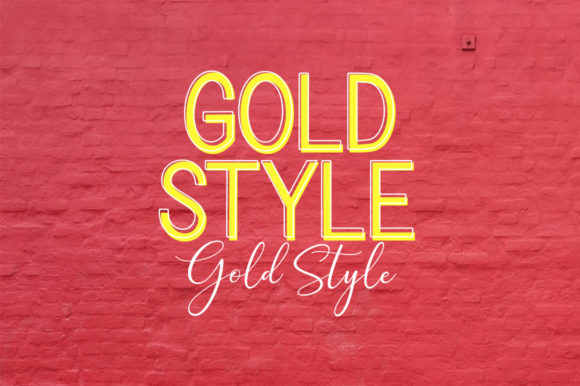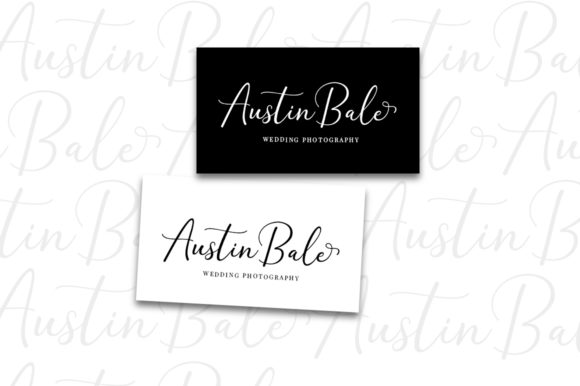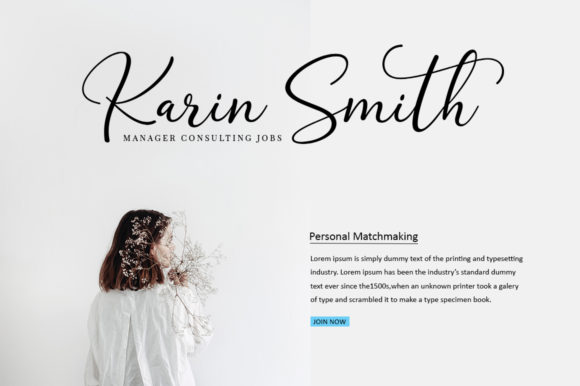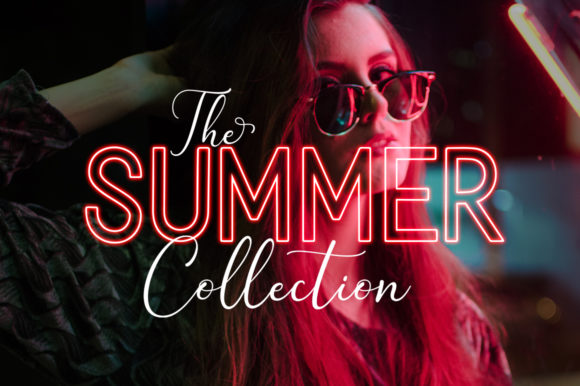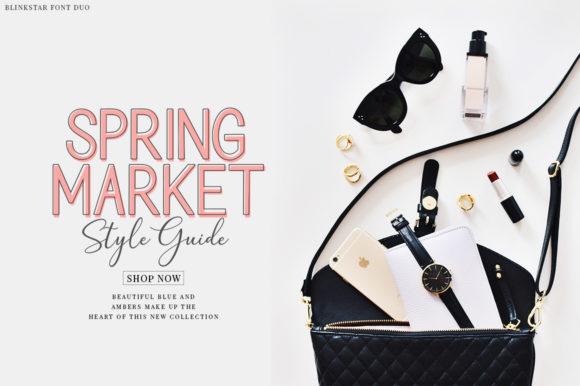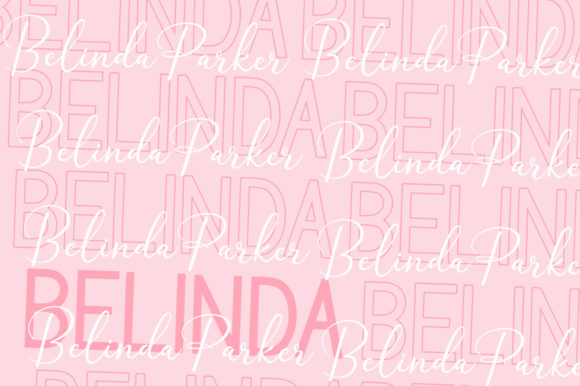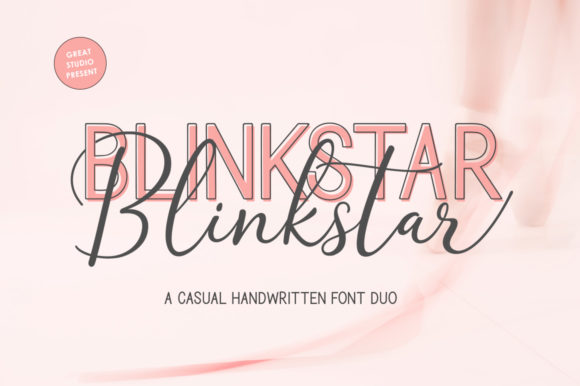
The Blinkstar Duo Font: A Playful Script Pair for Creative Projects
Have you ever been in the middle of a design project, and suddenly, you’re stuck on finding the perfect font? I recall a recent experience where a client asked for a custom lettering piece with a playful, yet elegant feel. After searching through numerous font options, I stumbled upon the Blinkstar Duo Font, and it instantly became my go-to choice. In this article, I’ll share my experience with this beautiful font, its features, and how to make the most of it in your designs.
A Personal Favorite: What I Love About Blinkstar Duo
The Blinkstar Duo Font is a versatile script pair that consists of a super fine and casual signature script and a complete and clean set of sans serif letters. Here are some features that I love about this font:
- ✨ Many alternative characters to choose from, allowing for unique customization
- ✅ Ligatures that look natural to add an authentic touch to your designs
- ✨ A collection of strange and initial swash tips to add finishing touches or fill space in your designs
- ✅ Swashes, endings, alternative letters, and ligatures all combine to make it a pretty little thing since tutus and tiaras
As mentioned earlier, the Blinkstar Duo Font has many features that make it an excellent choice for creative projects. The ability to customize your designs with alternative characters, ligatures, and swashes is a game-changer.
While the Blinkstar Duo Font is an amazing font, there are a few minor quirks to be aware of:
- ⚠️ Some characters may not work well in all sizes. For example, the swashes and ligatures might get lost in very small font sizes.
- 🤔 Requires a bit of experimentation to get the hang of using OpenType features and glyphs.
Designer Inspiration: The Story Behind Blinkstar Duo
The Blinkstar Duo Font was designed with creativity and playfulness in mind. The designer aimed to create a font that would allow users to add a personal touch to their designs. With its many alternative characters, ligatures, and swashes, the Blinkstar Duo Font is perfect for designers who want to create unique and eye-catching designs.
| Can I combine the Blinkstar Duo Font with other fonts? | Yes, the Blinkstar Duo Font can be paired with other fonts to create a unique look. The sans serif letters work well with a variety of fonts, while the script letters are best paired with fonts that have a similar feel. |